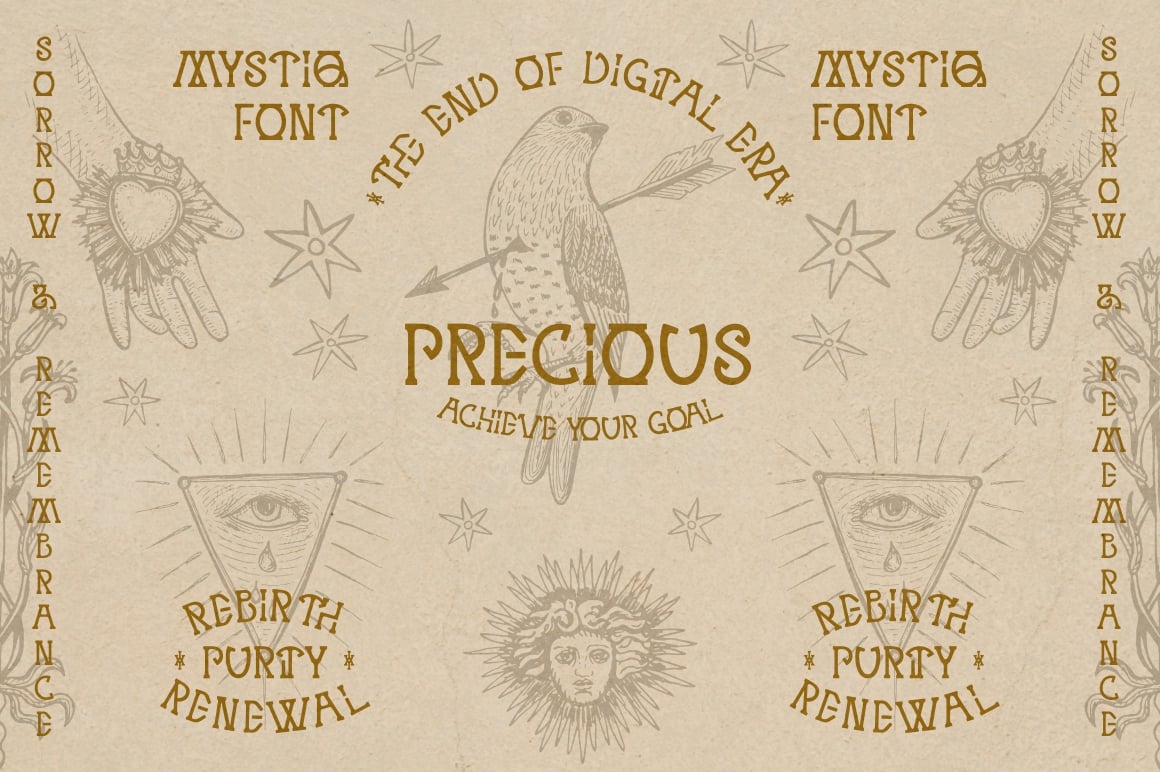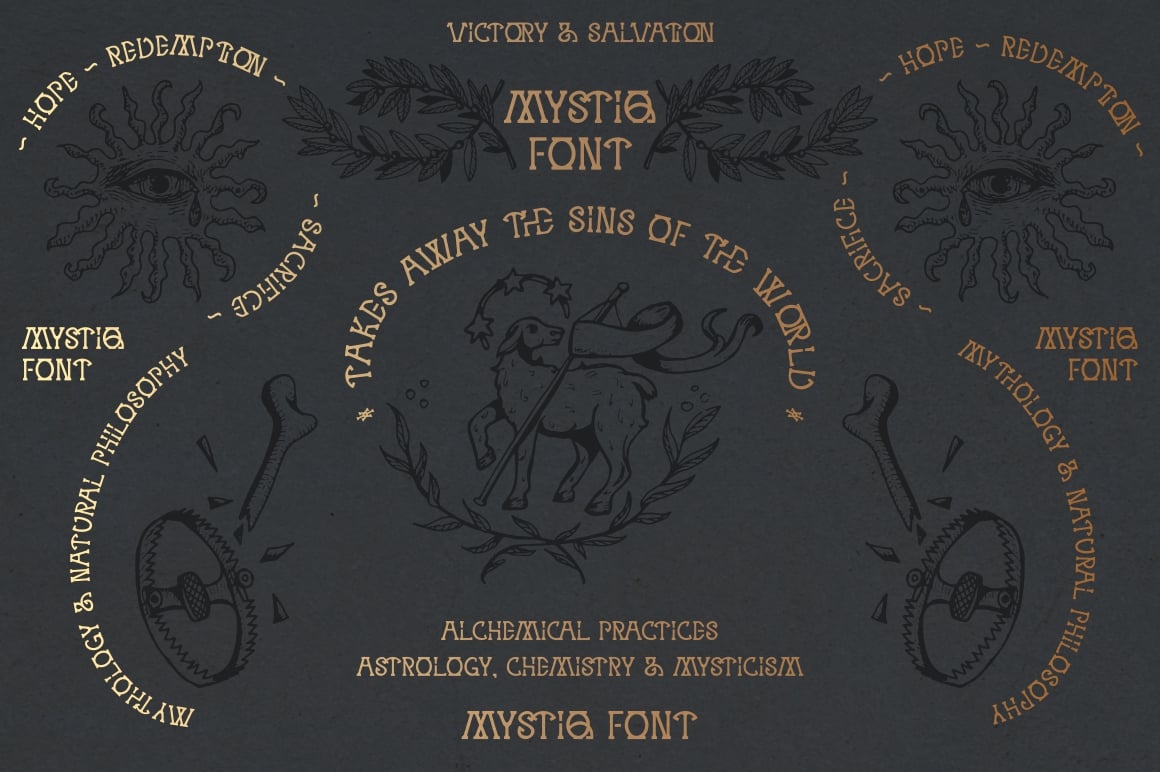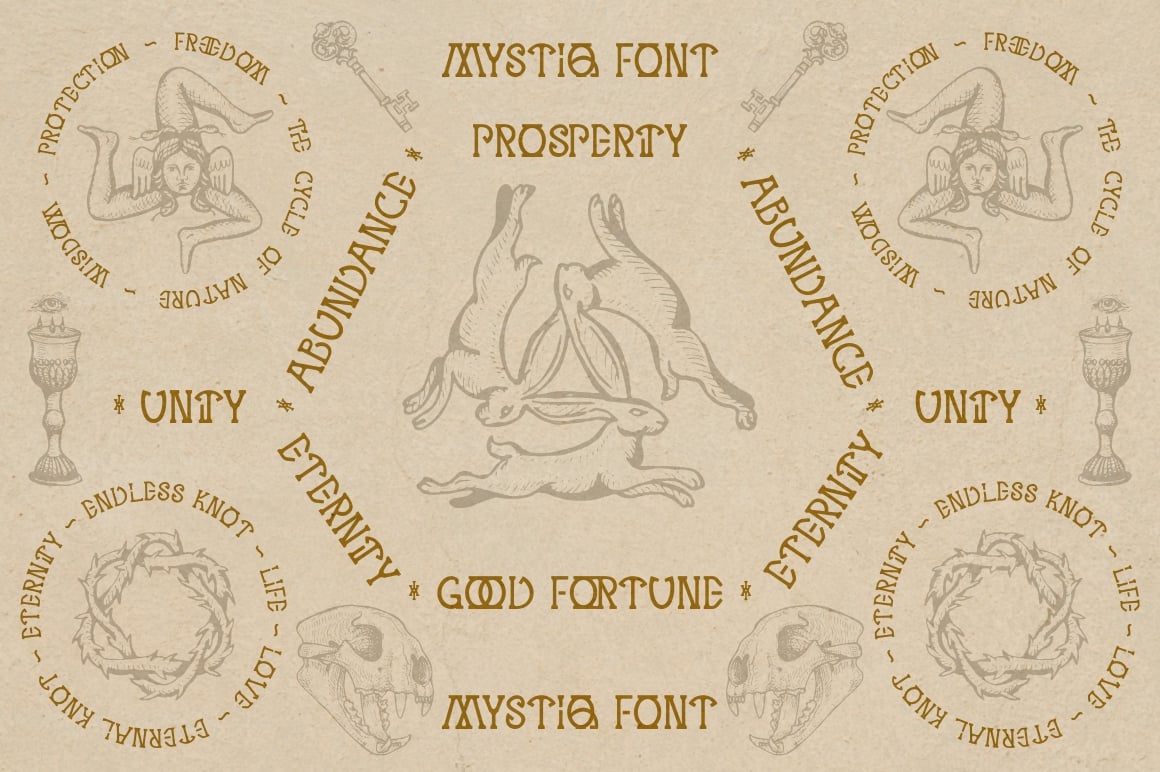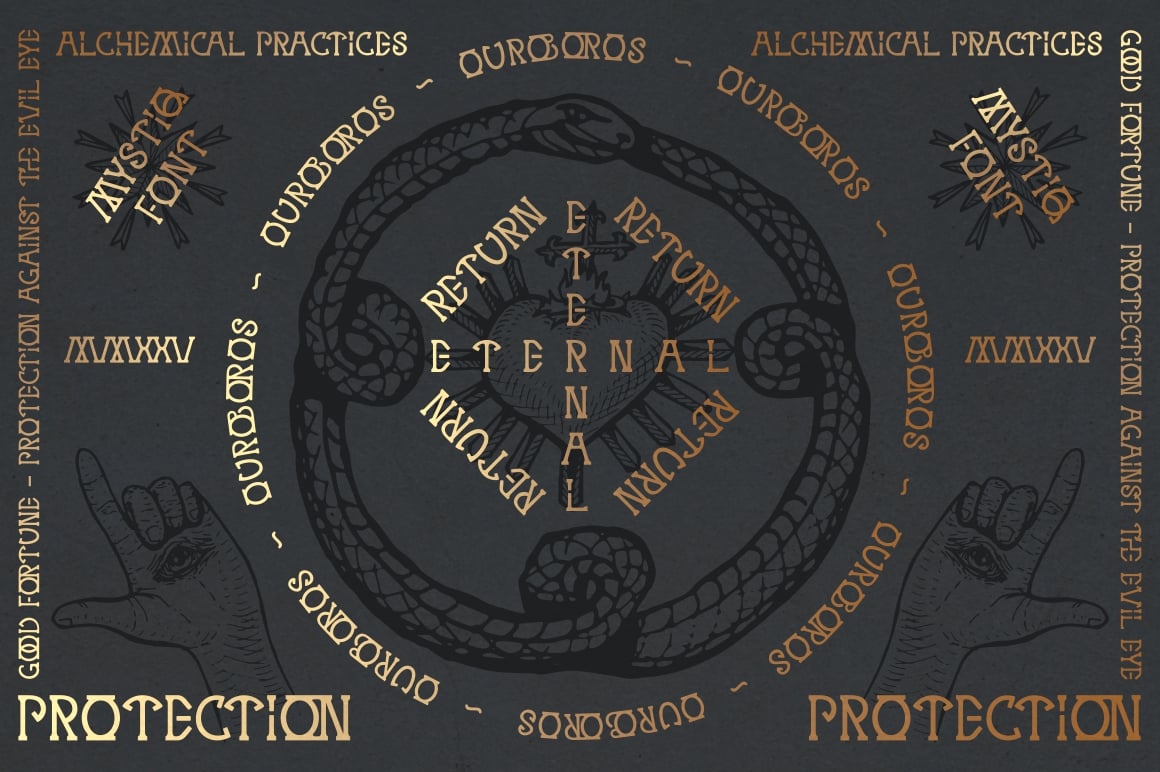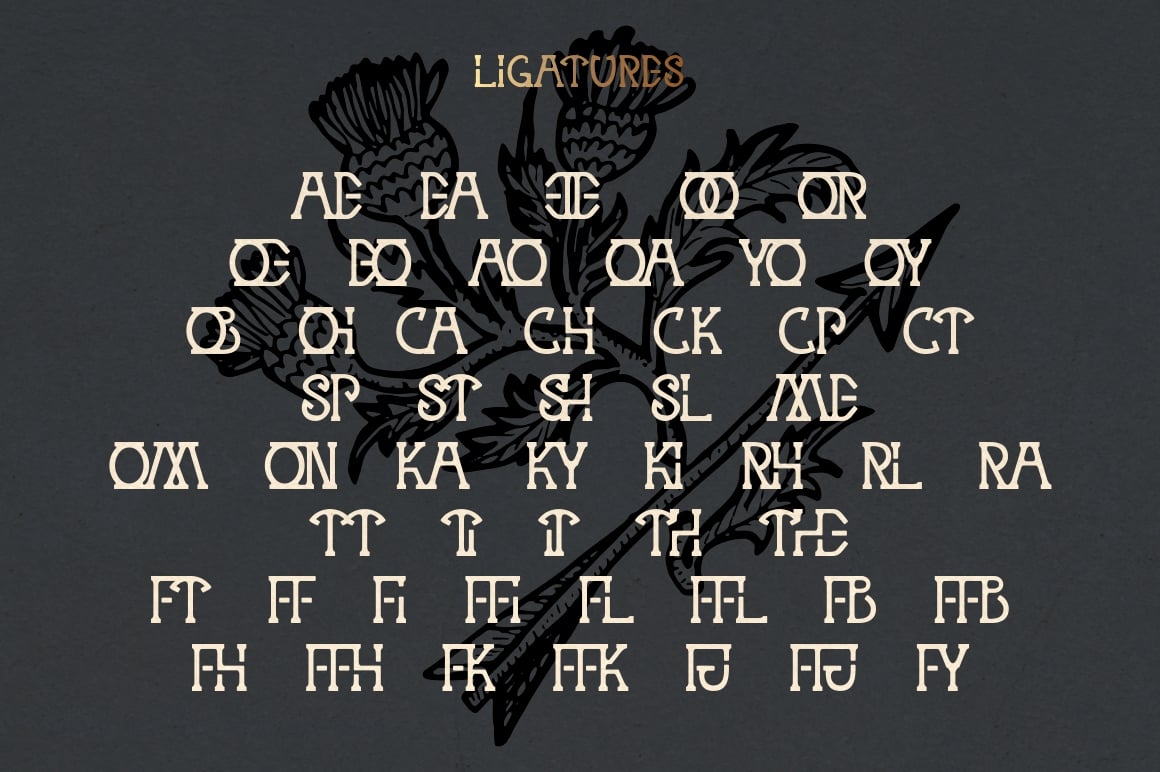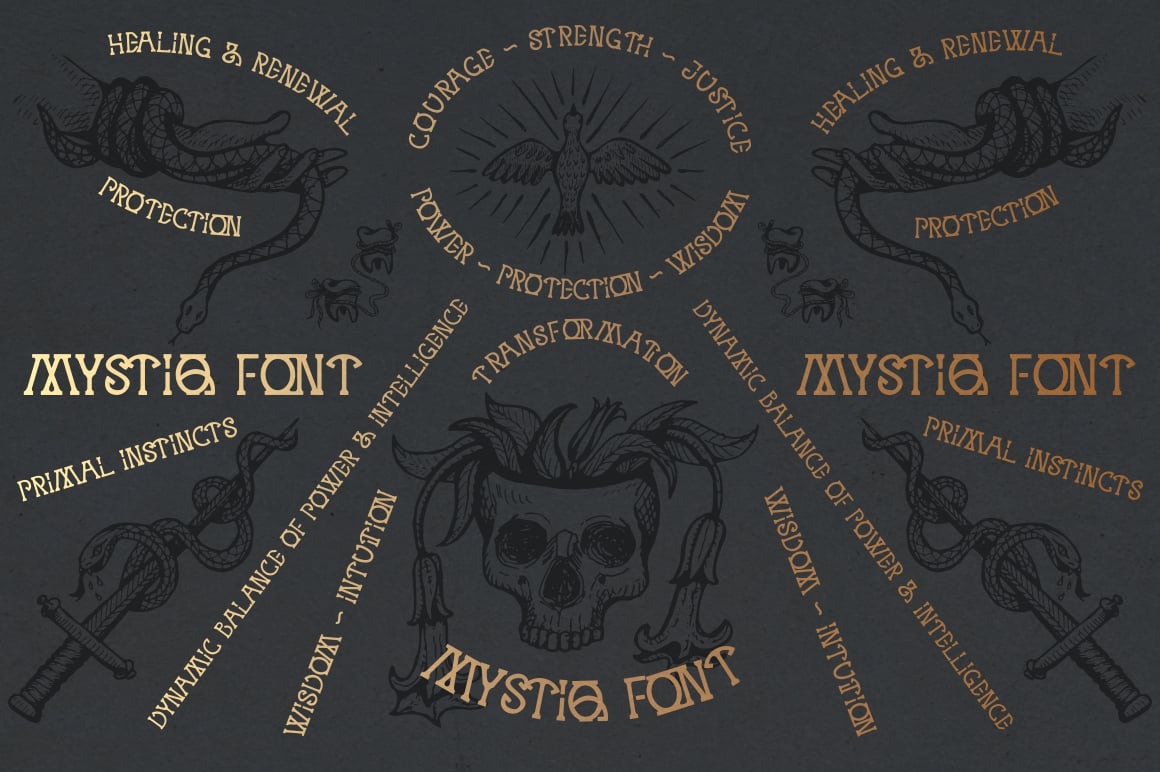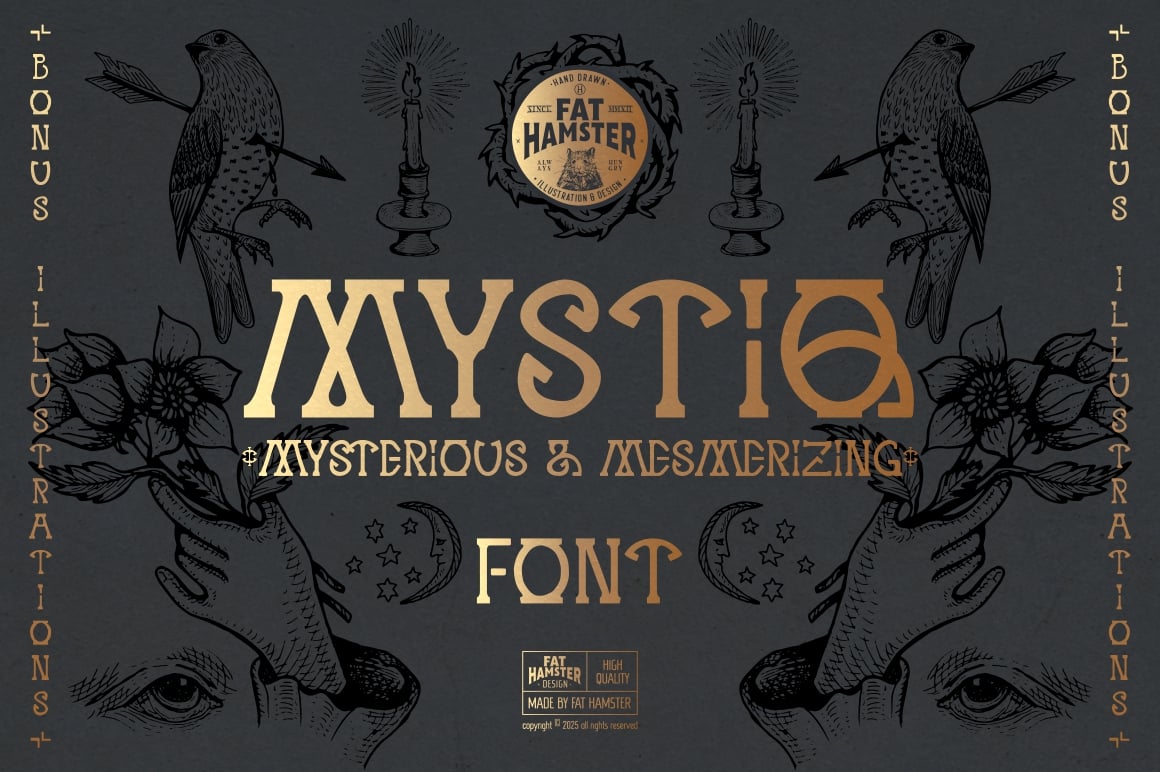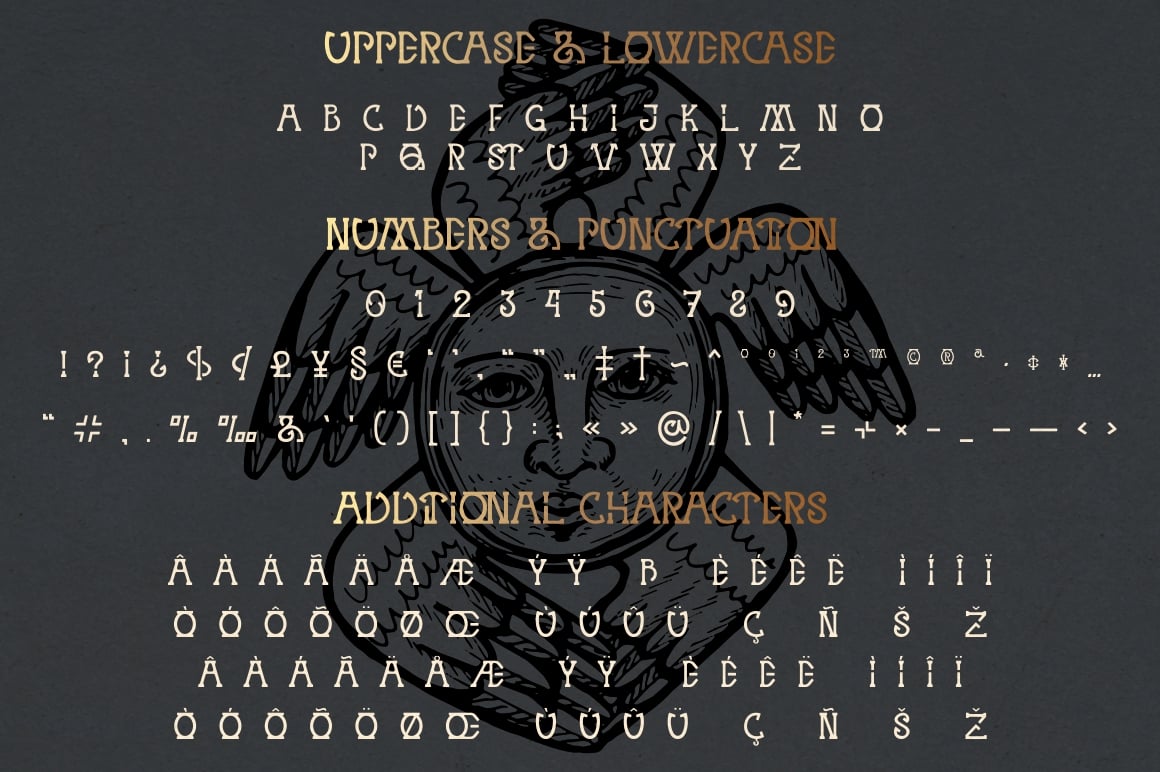
MYSTIQ mysterious display font
MYSTIQ display font
The "Mystiq" display font embodies a captivating fusion of mystic artistry and medieval craftsmanship, crafted to evoke a profound sense of mystery and esoteric allure. This set of mystic font and hand-drawn vector illustrations draws inspiration from ancient alchemical symbols, mystical sigils, and medieval engravings, creating a visually rich tapestry of spiritual symbolism.
The "Mystiq" font features intricate characters with ornate flourishes reminiscent of medieval manuscripts and alchemical texts. Its letterforms incorporate subtle glyphic details that evoke the secrets of alchemy, astrology, and mystical traditions. Each glyph is designed to appear as if carved by a medieval scribe, blending historical authenticity with a touch of magical elegance. Complementing the font are a collection of hand-drawn vector illustrations in the style of medieval engravings: mystical and alchemical symbols. These vector illustrations are ideal for creating mystical titles, mysterious logo and packaging design, esoteric posters and invitations, branding projects rooted in spirituality, mythology or alchemical themes.
Overall, "Mystiq" font is perfect for projects seeking to communicate a sense of spiritual depth, ancient wisdom, and arcane knowledge—be it in the realms of mysticism, alchemy, astrology, or medieval esoteric traditions. The design invites viewers into a world of magical symbolism and spiritual exploration, bridging the mystical past with contemporary artistic expression.